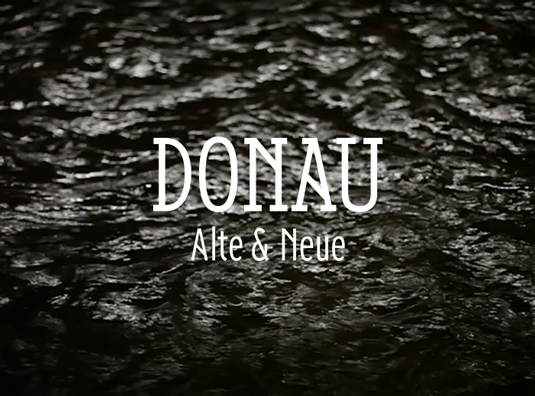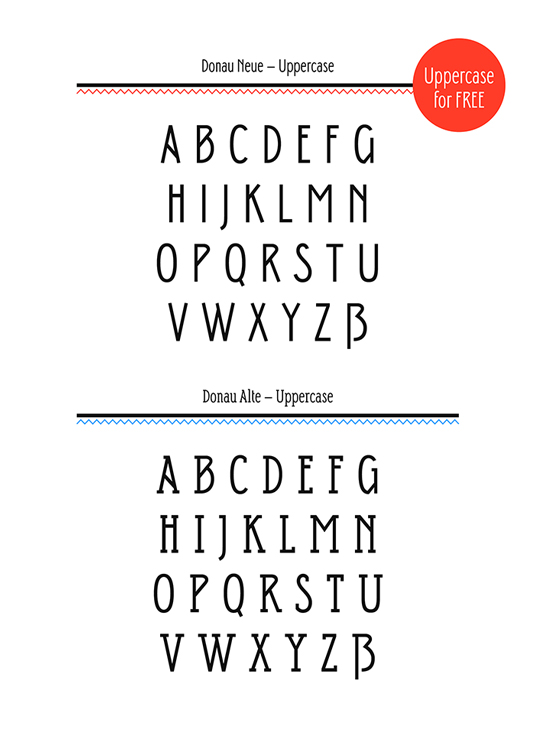
Font of the day: Donau
Donau from Renzler Design
An art nouveau-inspired sans and slab serif typeface, Donau is named after the German name for the river Danube. Created by font designers Hans Renzler, Dmitrij Ritter, Igor Labudovic of Renzler Design, Donau is intended for any kind of display use, as well as short amounts of text.